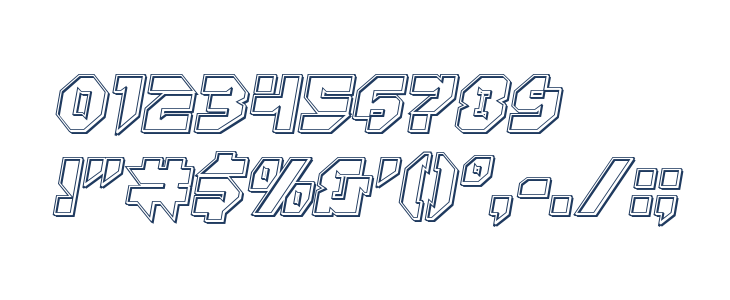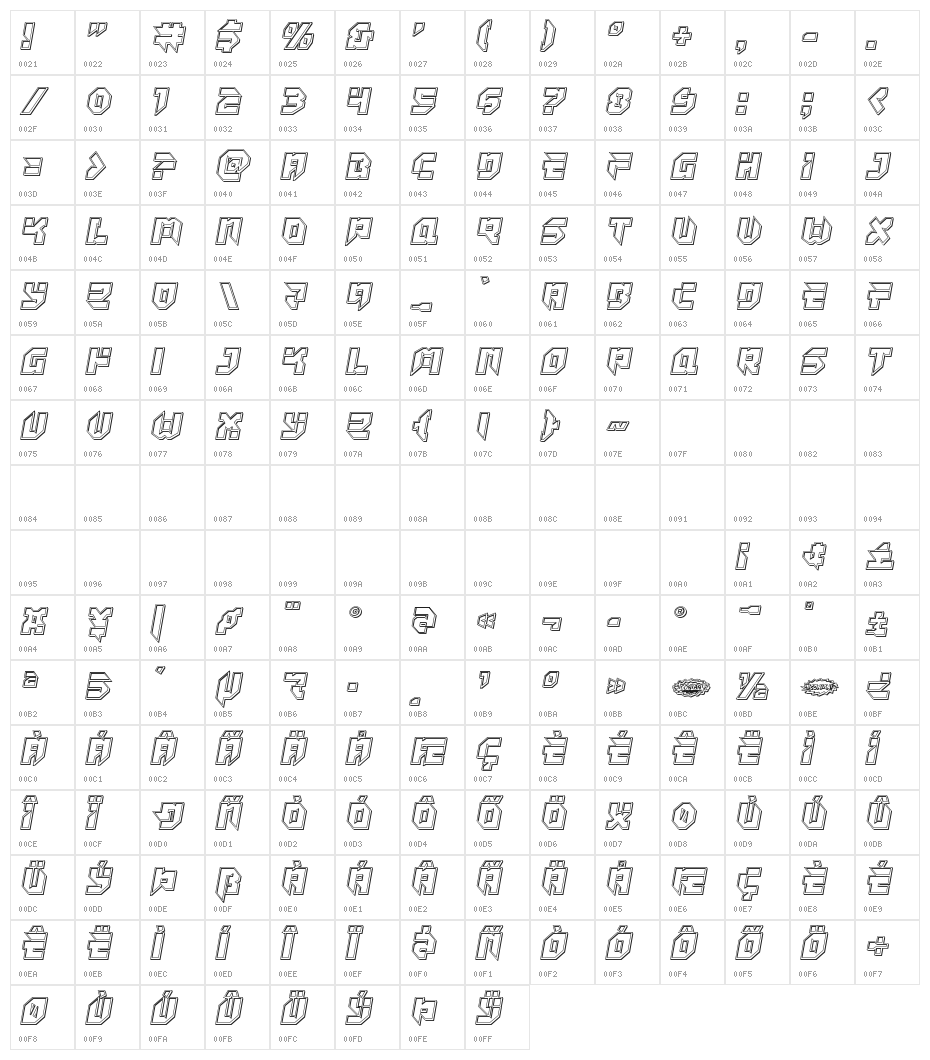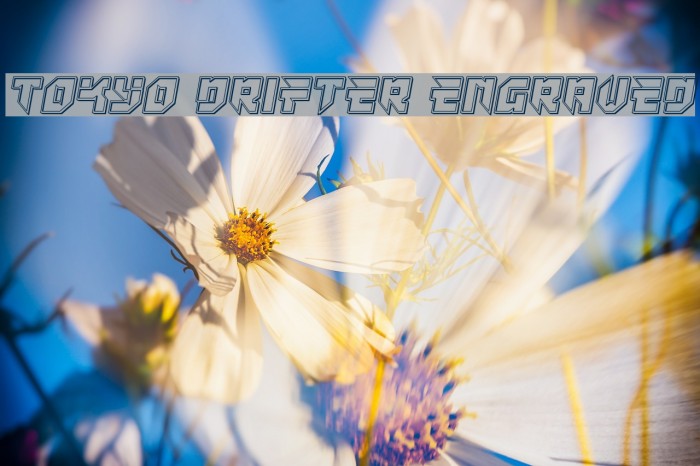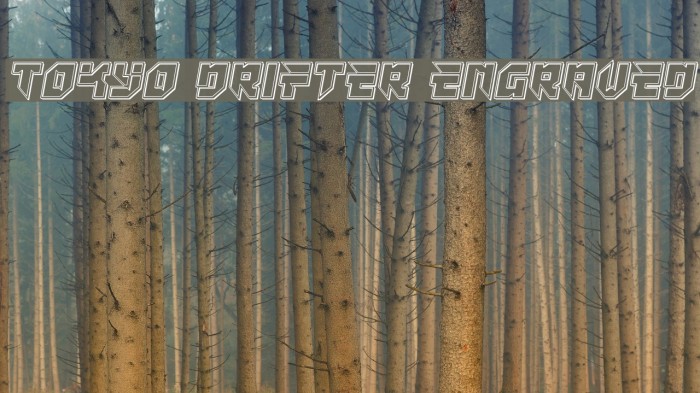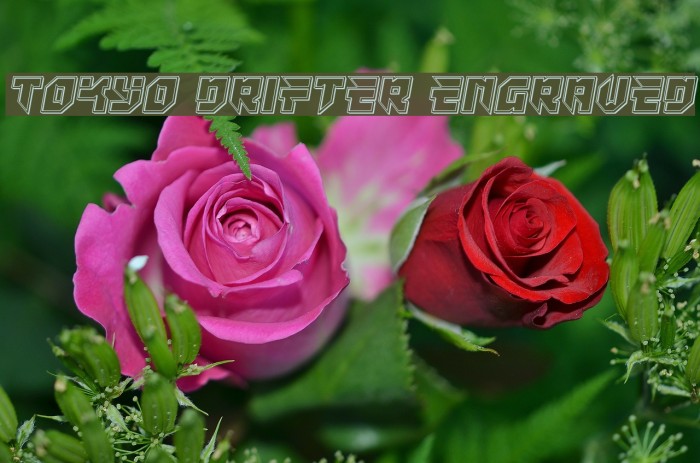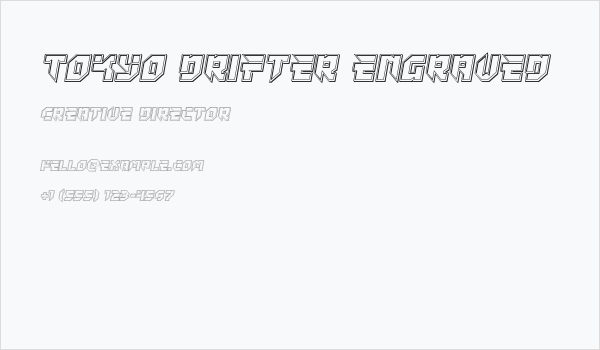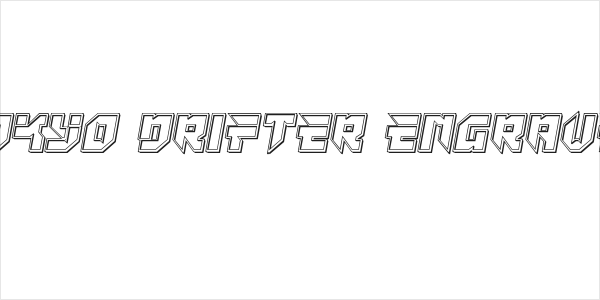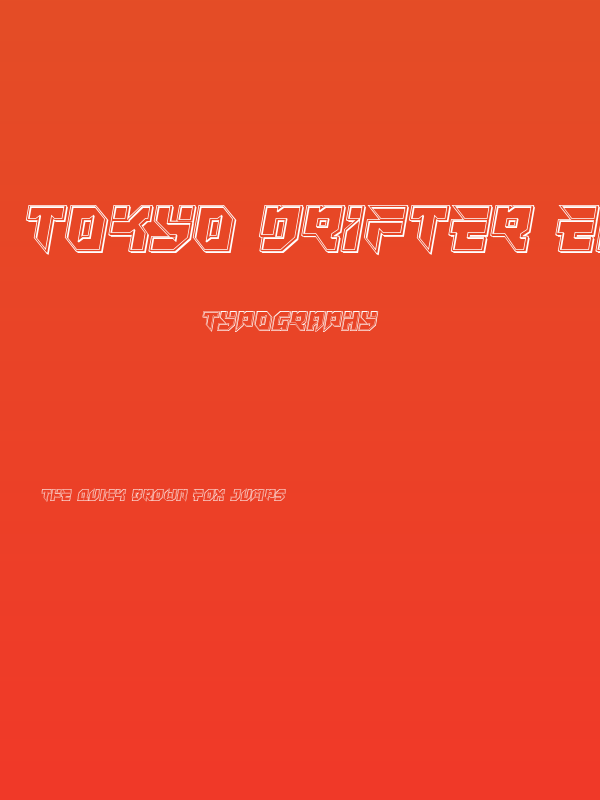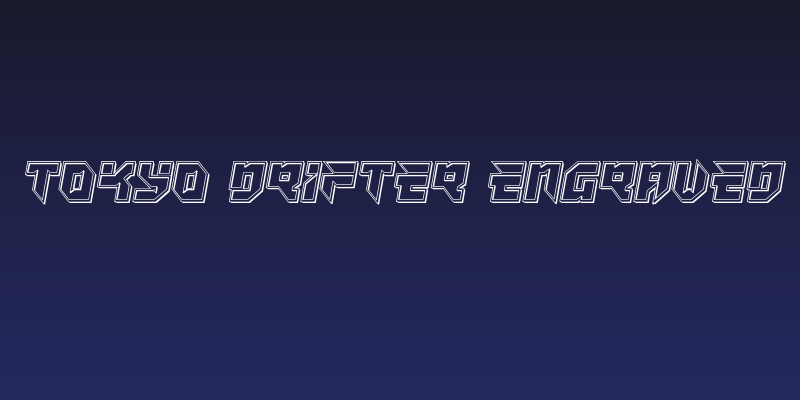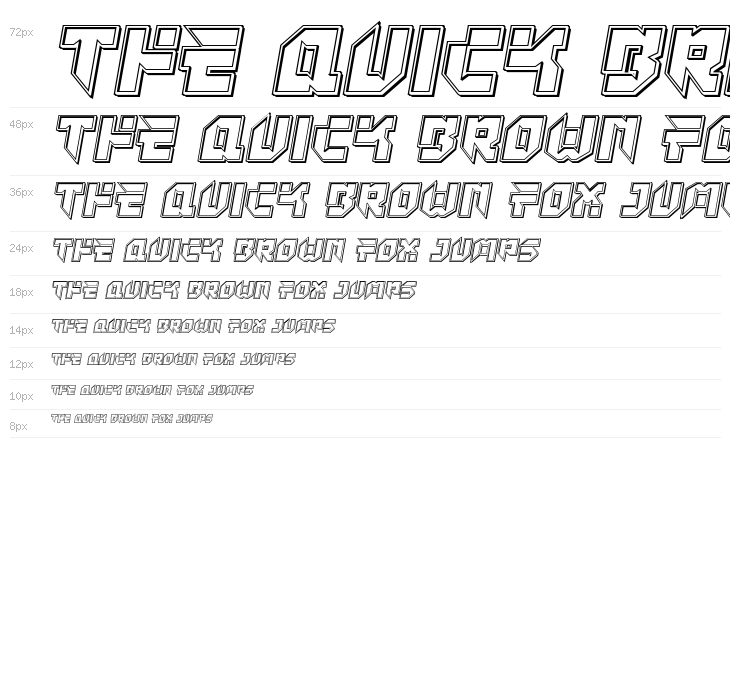
Tokyo Drifter Engraved Font
Tokyo Drifter Engraved Description
This font features a bold, geometric design with a three-dimensional engraved effect. Each character is outlined with sharp, angular lines that create a sense of depth and movement. The uppercase and lowercase letters maintain a consistent style, emphasizing a futuristic and industrial aesthetic. The numbers and special characters are designed with the same attention to detail, ensuring uniformity across the entire typeface. The font's unique style makes it stand out, with its intricate line work and dynamic appearance.
Overall StyleFuturistic
Proposed ProjectsIdeal for projects that require a futuristic or industrial look, such as tech branding, video game titles, or sci-fi themed posters.